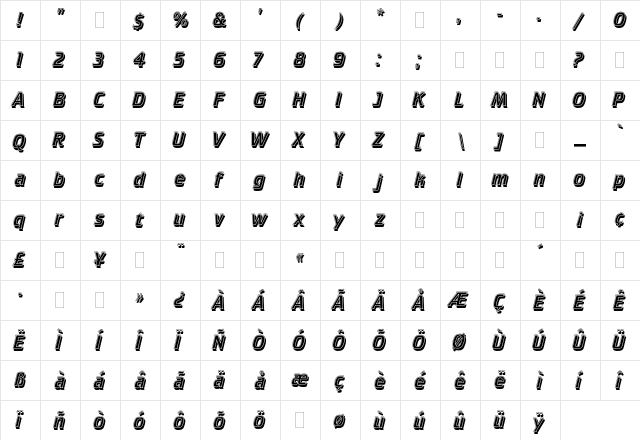
Crillee Italic Inline Shad Plain
Design Context for Crillee Italic Inline Shad Typeface
Crillee Italic Inline Shad is built around its visual character rather than neutral utility — its distinctive forms are designed to make an impression at display sizes. The dynamic lean of this cut emphasises speed and emphasis in any layout.
Font Pairing: Pair with a clean neutral sans-serif for body copy to let Crillee Italic Inline Shad's character lead without overwhelming the composition.
Pro Tip: Use Crillee Italic Inline Shad exclusively at display sizes — it was designed to be seen, not read at length. Let a neutral companion handle body copy.